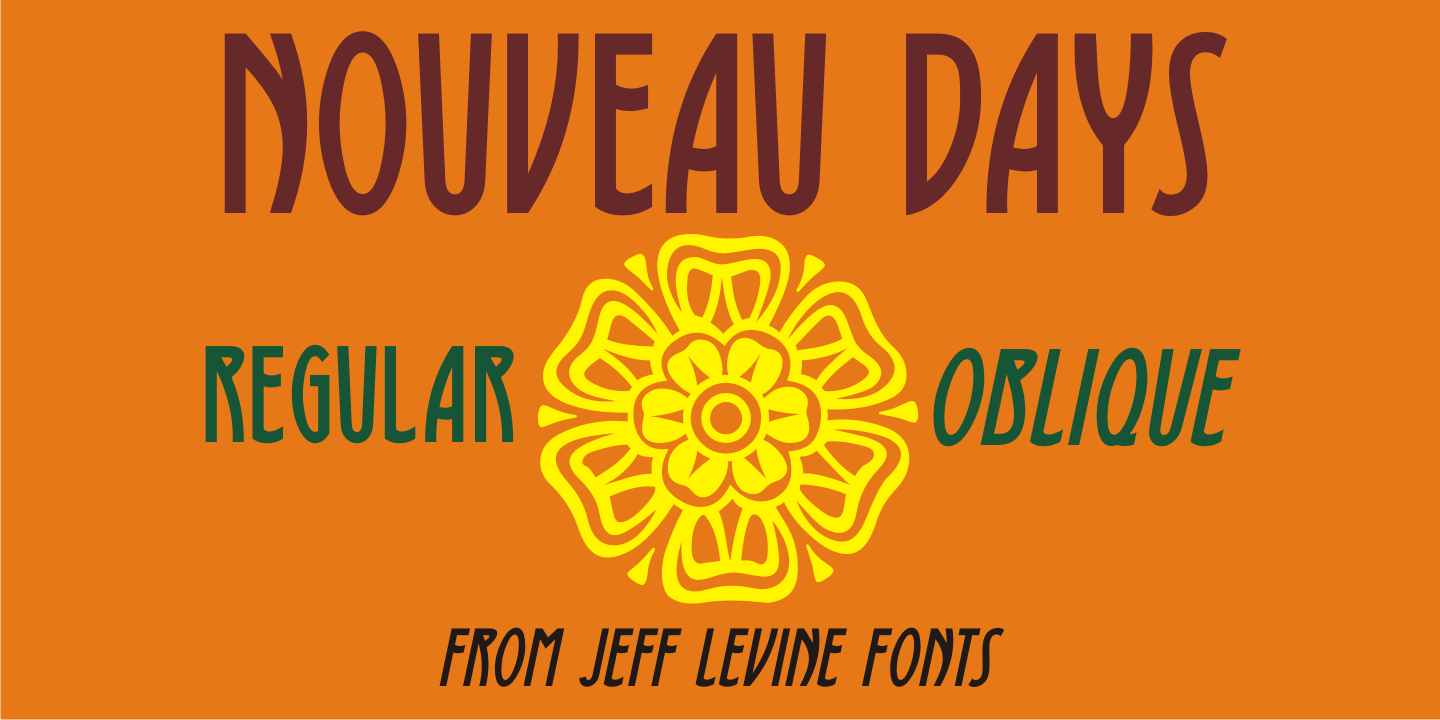
Nouveau Days
The basic design style for Nouveau Days JNL was inspired by the hand lettering on the sheet music cover for 'Linger Longer Letty”. This tongue-twisting song title comes from the 1919 musical comedy of the same name.
Some of the characters originally had tiny spur serifs, but they were omitted in the digital version to keep the overall design consistent.
The font is available in both regular and oblique versions.
Nouveau Days JNL Regular by Jeff Levine Fonts